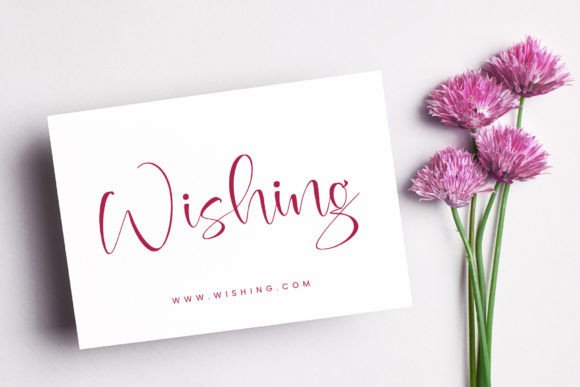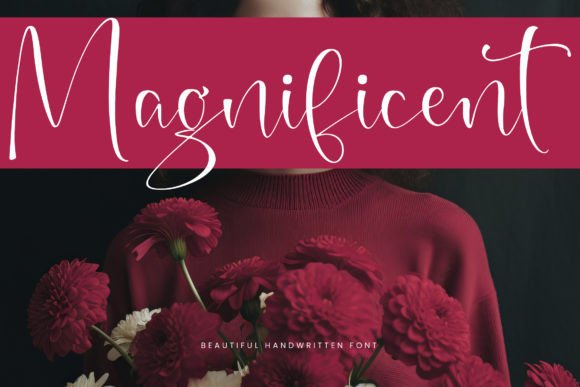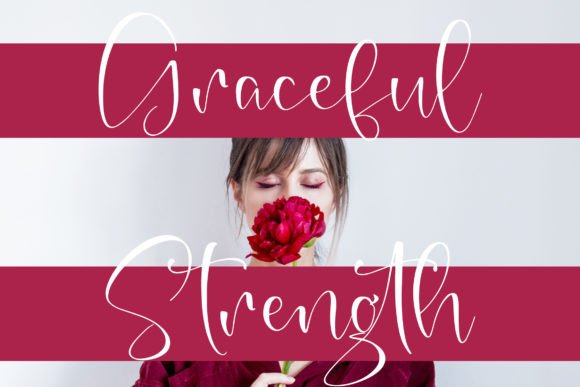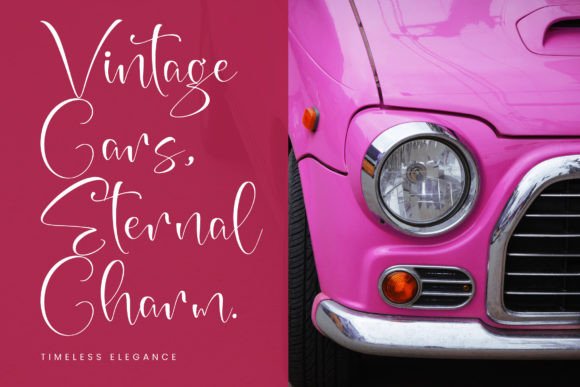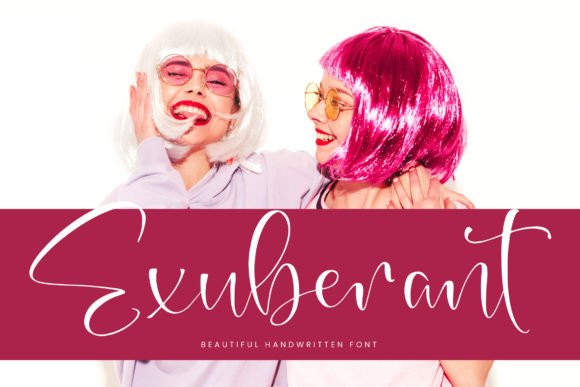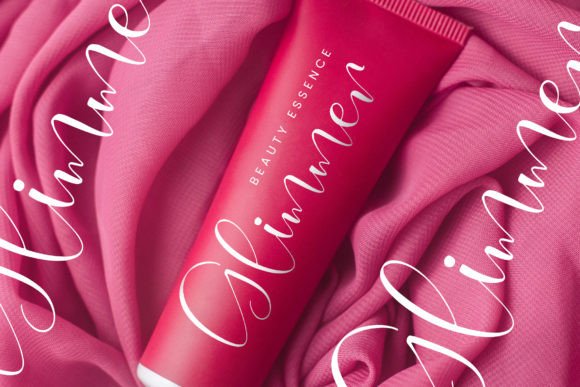
Unlock the Magic of Luxury Script: Introducing Azalea Sageretia Font
Have you ever been captivated by the elegance of handwritten notes from a loved one? The way the ink flows effortlessly onto the page, creating a unique and personal message that speaks directly to the heart? As creatives, we’re often on the hunt for that same magic in our designs. And now, we’re thrilled to introduce the Azalea Sageretia Font, a luxury script font that embodies the essence of handwritten beauty.
This exquisite font from Letterena is perfect for adding a touch of sophistication to any project, from logos and branding to homeware designs and product packaging. With its fluid curves and elegant flair, the Azalea Sageretia Font is a game-changer for designers looking to elevate their work to the next level. Whether you’re a seasoned pro or just starting out, this font is sure to inspire your creativity and help you create truly stunning designs.
- Unique Characteristics: Azalea Sageretia Font features a unique blend of modern and traditional elements, with intricate details and subtle textures, making it suitable for a wide range of design applications
Azalea Sageretia Font Review
Overall, I’d say the Azalea Sageretia Font is a solid choice for designers looking for a unique, yet elegant font. ✨ Here are some of its strengths:
- Unique yet elegant design, making it perfect for wedding invitations, luxury branding, or high-end packaging.
- It’s highly legible, even at smaller font sizes, which is essential for body text or smaller labels.
- Supports a wide range of languages, including English, Spanish, French, and many more.
However, like any font, Azalea Sageretia Font has its limitations. ⚠️ Here are a few things to keep in mind:
- It’s not ideal for display headings or titles, as it may get lost in larger font sizes.
- The font’s elegance can also make it feel overly formal or stiff in certain contexts.
- Some users may find the font’s weight to be too light or too heavy in certain situations.
Overall, I think Azalea Sageretia Font is a great addition to any designer’s toolkit. While it may not be perfect for every project, its unique charm and high legibility make it a solid choice for the right applications.
Tip: Use Azalea Sageretia Font to add a touch of elegance to your designs, especially for invitations and event materials.
Tip: Use Azalea Sageretia Font to create custom typography for your branding or packaging design.
Tip: Use Azalea Sageretia Font to add a professional touch to your presentations or documents.
Azalea Sageretia Font is suitable for:
- Wedding invitations and event materials
- Branding and packaging design
- Presentations and documents
- Social media posts and marketing materials